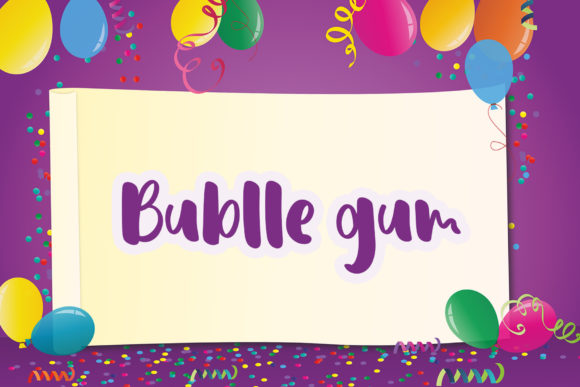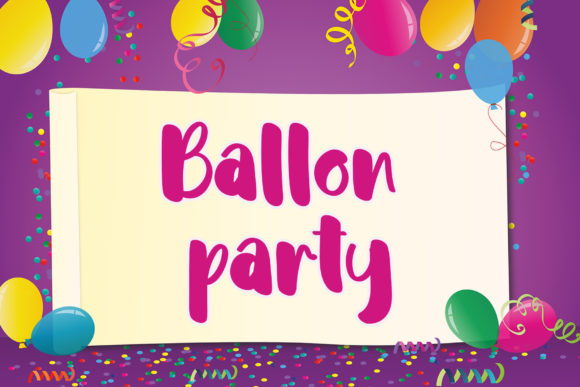
Happy Birthday Font
db-ku.com - Script & Handwritten -- Happy Birthday is a friendly handwritten font, carefully designed to become a true favorite. It maintains its classy calligraphic influences while feeling contemporary and fresh.